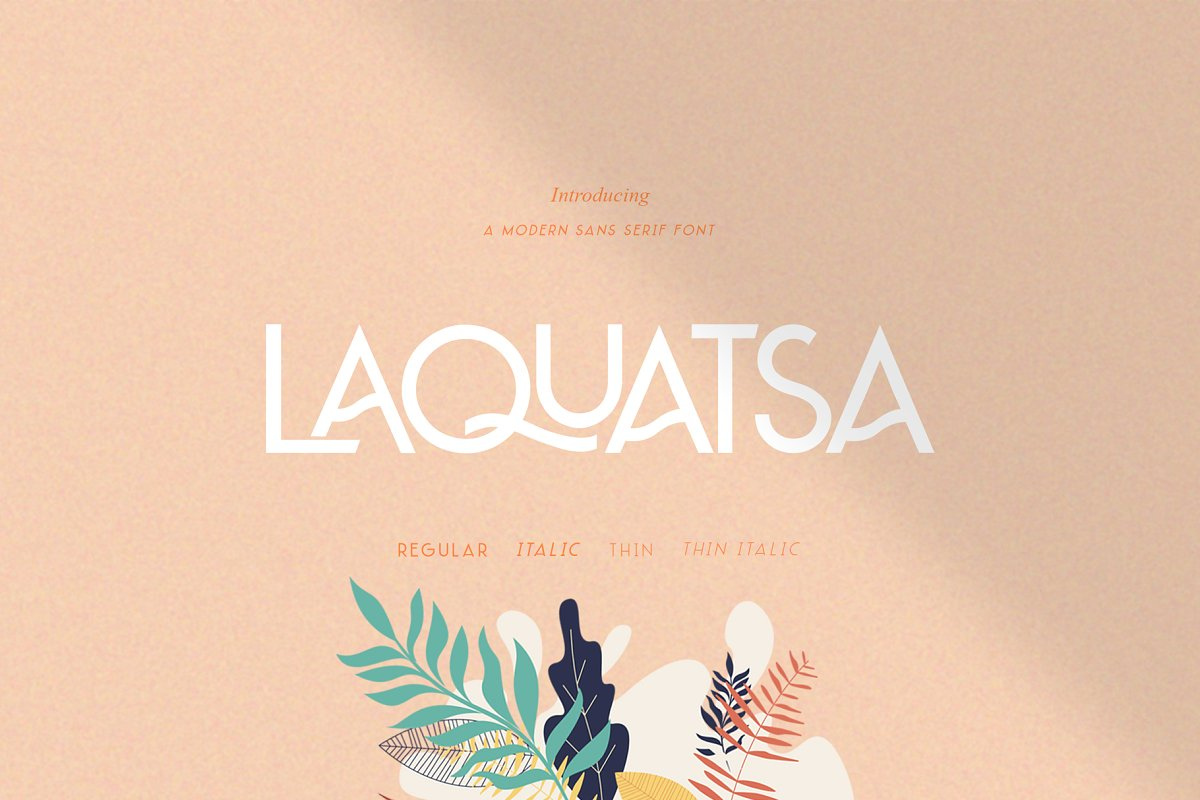
Laquatsa Font
Laquatsa Font is perfect for luxury aquatic resorts, sophisticated spa branding, elegant wellness centers, premium water treatment companies, high-end marine conservation organizations, refined coastal hospitality venues, upscale aquatic therapy centers, exclusive yacht club communications, sophisticated swimming facilities, and luxurious waterfront lifestyle brands.
Laquatsa Font creates excitement because it embodies the flowing elegance and aquatic sophistication of luxury water experiences with its fluid letterforms and water-inspired character design. The font's graceful curves and aquatic aesthetic instantly convey premium quality and refined water luxury, making any brand appear sophisticated and authentically connected to aquatic excellence. Its carefully crafted water details and flowing character create an immediate sense of aquatic elegance that captivates audiences seeking luxury water experiences, premium aquatic services, and products that celebrate the transformative beauty of water luxury and aquatic sophistication.
The Laquatsa Font family includes multiple weights and styles: Regular, Bold, Light, Medium, Italic, Condensed, Extended, Flowing, Aquatic, and Luxury versions. Each variant maintains the font's signature water character while offering different levels of aquatic styling and luxury authenticity suitable for various premium water and wellness applications.
This elegant typeface brings the authentic spirit of luxury aquatic experiences into contemporary premium design with remarkable fluidity and aquatic appeal. Laquatsa Font Free Download provides luxury water brands and premium wellness organizations with access to sophisticated aquatic typography that embodies the essence of water luxury and aquatic excellence. The font's flowing design and aquatic authenticity make it ideal for businesses seeking to establish meaningful connections with luxury-conscious audiences who appreciate premium water experiences, aquatic sophistication, and the transformative power of luxury water treatments and aquatic wellness. Whether you're creating branding for luxury spas, designing materials for premium aquatic facilities, developing communications for high-end water services, or producing content for exclusive waterfront venues, this font delivers the sophisticated aquatic atmosphere that resonates with audiences seeking genuine water luxury, premium aquatic experiences, and the refined elegance that comes from connecting with the finest aquatic traditions. Its versatile design ensures outstanding performance across both luxurious printed materials and elegant digital aquatic platforms while maintaining the character of authentic luxury water typography. The font excels in applications requiring luxury credibility and aquatic appeal. Premium wellness professionals appreciate its ability to convey aquatic sophistication while remaining highly functional for various luxury communications and premium water promotional materials. The comprehensive character set includes aquatic symbols and extensive international language support, making it perfect for global luxury water brands and international premium aquatic organizations seeking to communicate authentic water luxury, aquatic excellence, and sophisticated water experiences to discerning worldwide audiences who embrace luxury wellness, appreciate aquatic sophistication, and value the transformative power of genuine water luxury that creates profound relaxation through premium aquatic experiences, sophisticated water treatments, and the timeless elegance of luxury water living.